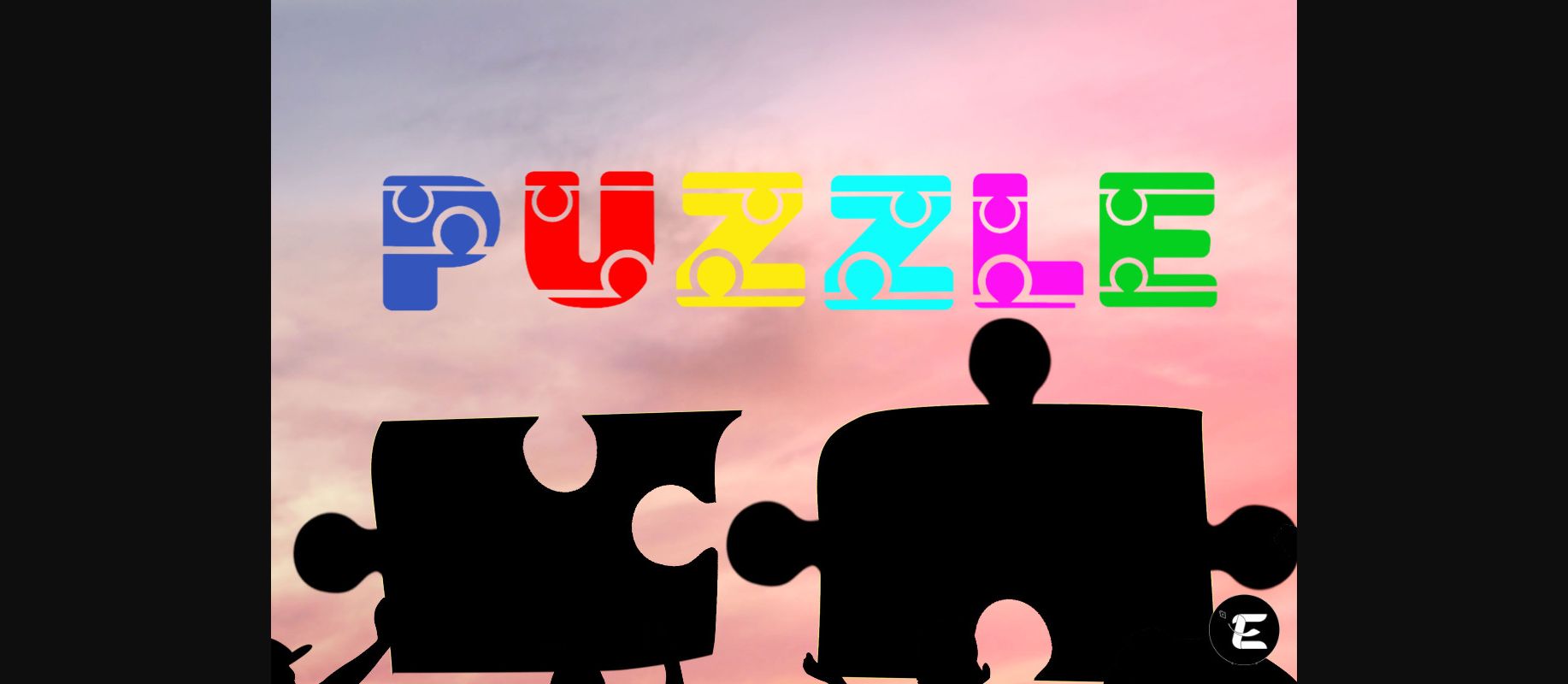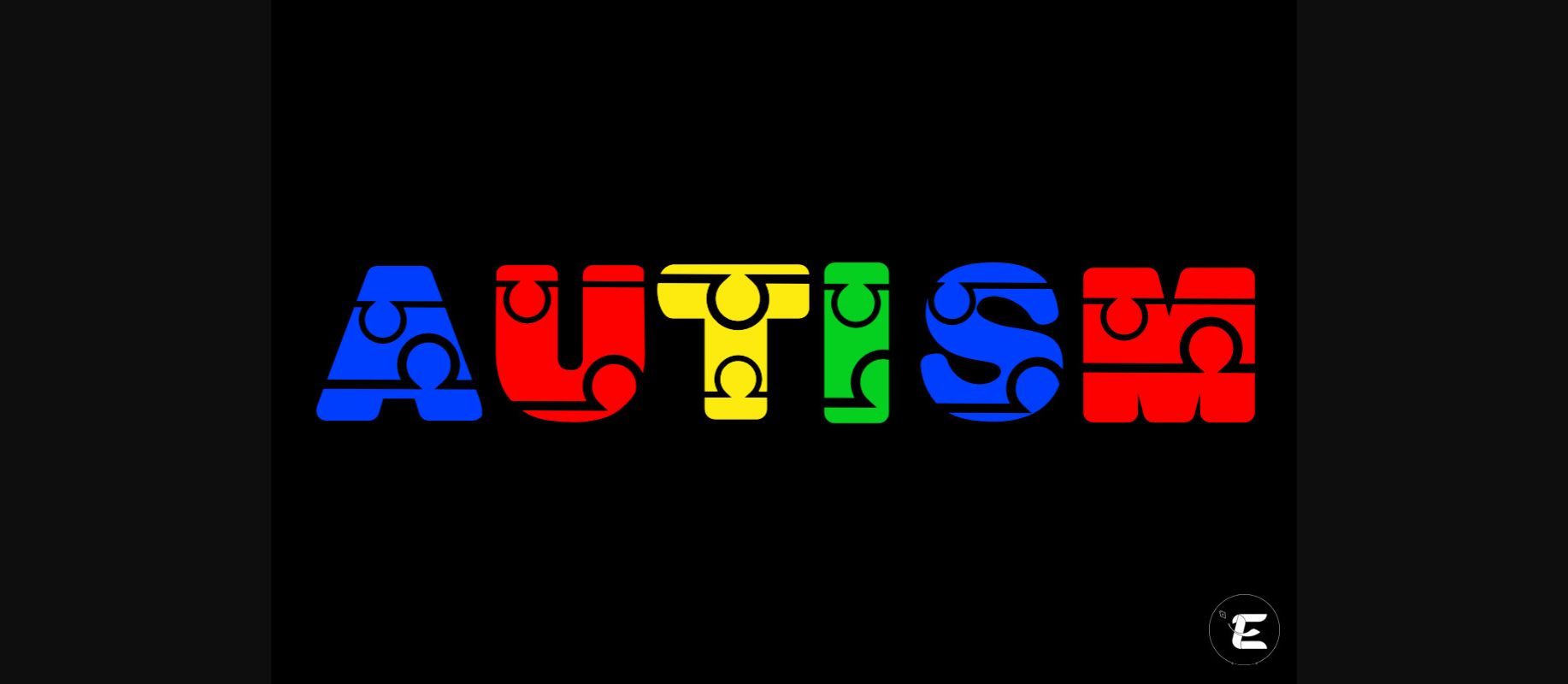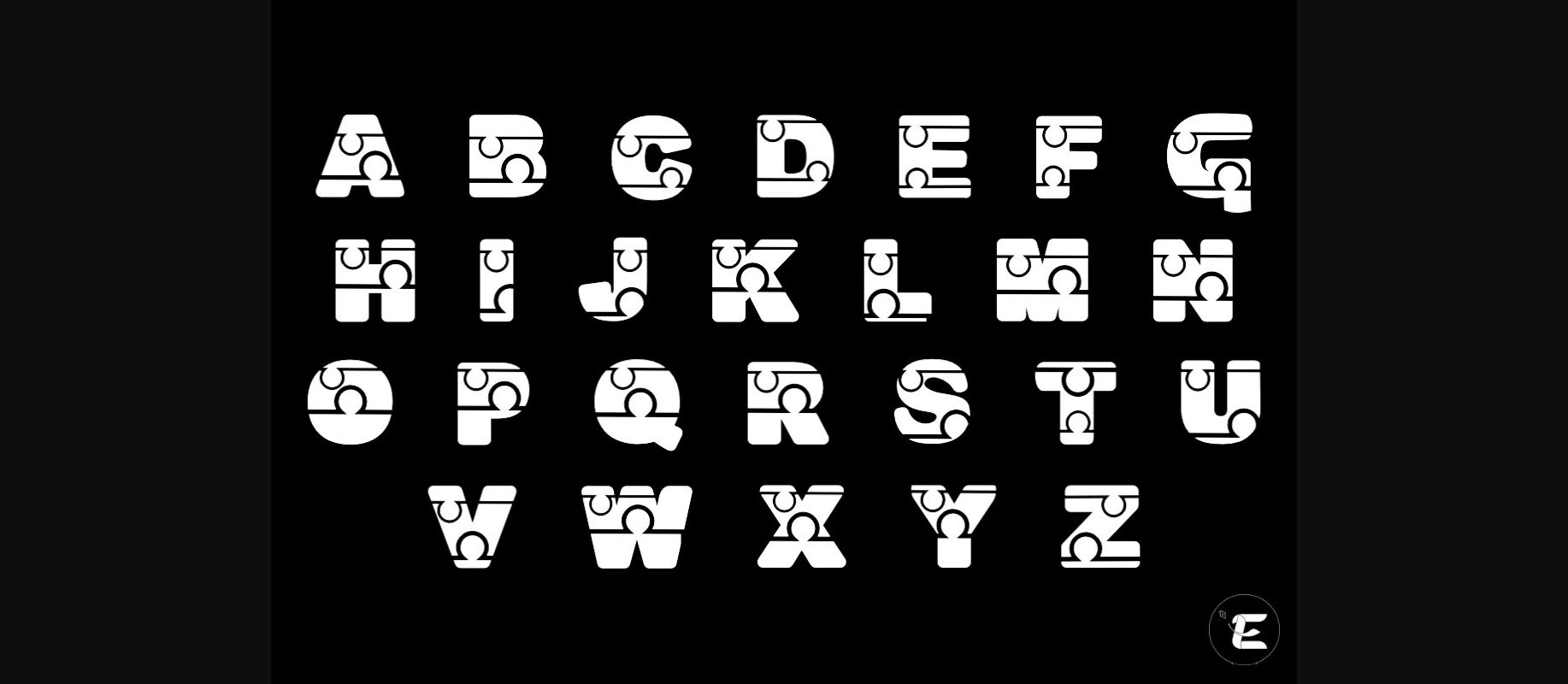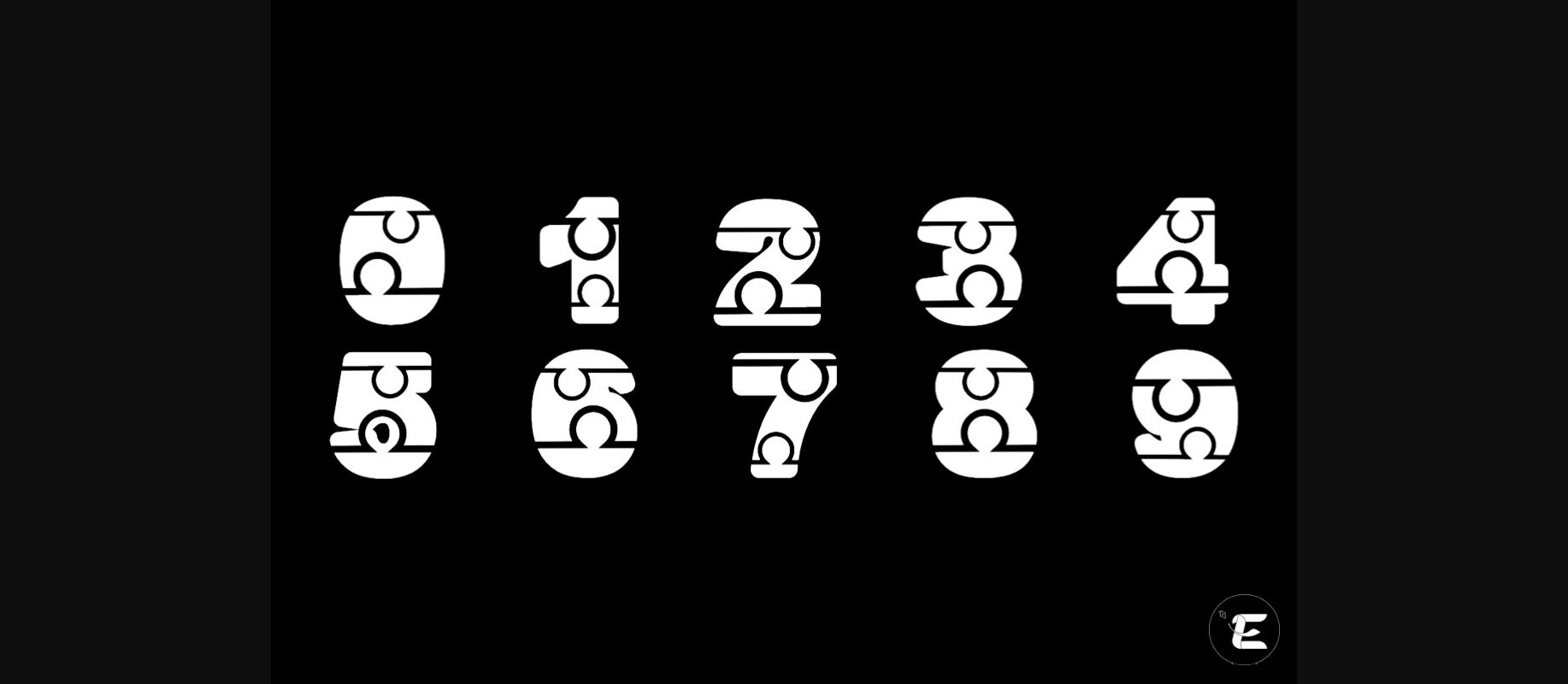
HomeDecorative FontsPuzzle Font Decorative Fonts Puzzle Font FacebookXPinterestWhatsApp 1 of 6 ... Puzzle Font Poster 2... Puzzle Font Poster 3... Puzzle Font Poster 4... Puzzle Font Poster 5... Puzzle Font Poster 6... About Puzzle Font Puzzle is a cool and playful decorative font. Whether you use it for crafts, digital design, presentations, this font has the potential to become your favorite font for any occasion! DOWNLOAD NOW People also explored Oh Fiddlesticks Font Candle Light Font My Familly Font Nabilla Font Naive Ornaments Family Font Simplicity Font Heartland Font Vanessa Font Bantasi Font 335 0 TagsPuzzlePuzzle Font Previous articleFlowers FontNext articleGavin Zoo Font LEAVE A REPLY Cancel reply Comment: Please enter your comment! Name:* Please enter your name here Email:* You have entered an incorrect email address! Please enter your email address here Website: Save my name, email, and website in this browser for the next time I comment. Personal Use Free Boronic Personal Use Free Read more about this font Green Farmhouse Personal Use Free Read more about this font Rogueland Personal Use Free Read more about this font Engine Personal Use Free Read more about this font BLOG How to Cut Any Font on Cricut: Convert a Font to SVG (Free) Turn any font into a clean SVG so it cuts crisp on Cricut - a quick 3-step workflow using a free font-to-SVG tool. 5 Fonts That Will Dominate Design Trends in 2026 Modern Sans-Serif Fonts That Brands Love in 2025 Top 7 Google Fonts Alternatives for Faster and Privacy-Friendly Web Design (2025)